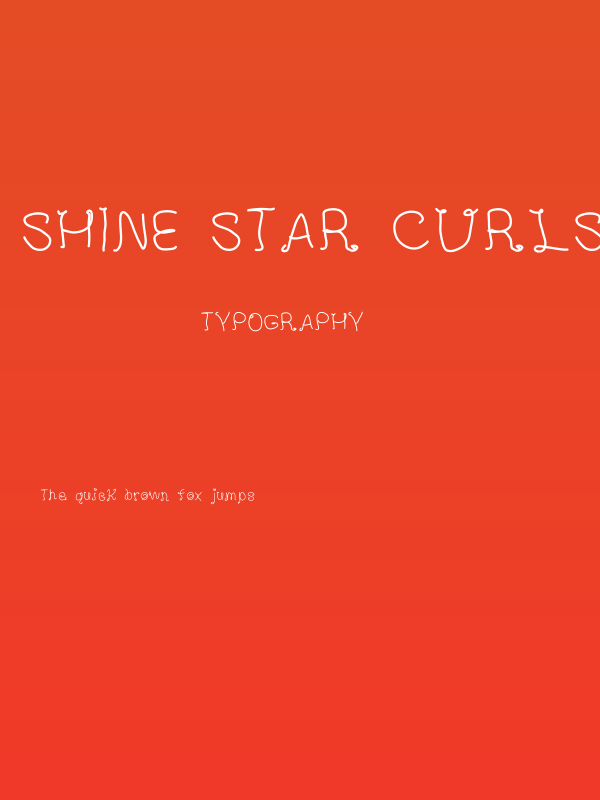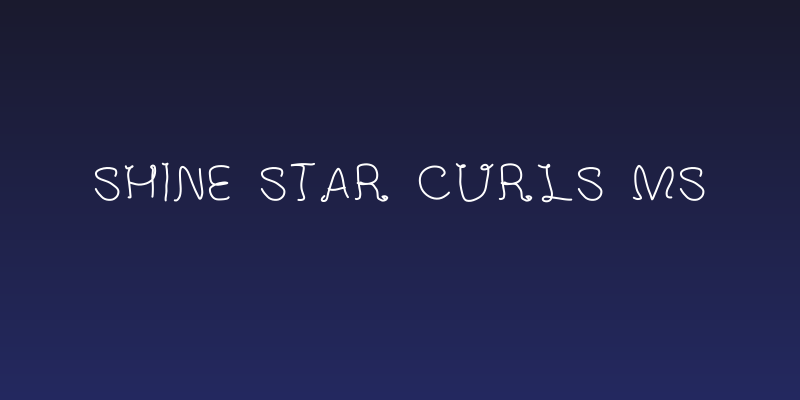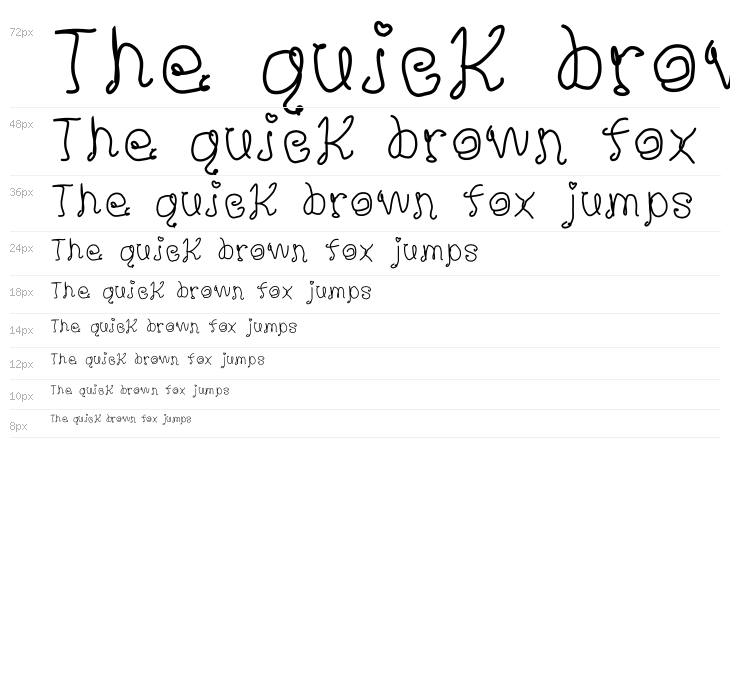
shine star curls MS Font
shine star curls MS Description
This font features a whimsical and playful design, characterized by its curly and decorative elements. Each letter is adorned with unique curls and loops, giving it a lively and animated appearance. The strokes are consistent in thickness, providing a uniform look across all characters. The font includes both uppercase and lowercase letters, numerals, and a variety of special characters. Its distinctive style makes it stand out, perfect for projects that require a touch of fun and creativity.
| Overall Style | Playful, Whimsical, Decorative |
| Proposed Projects | Ideal for children's books, playful invitations, greeting cards, and creative branding projects. |